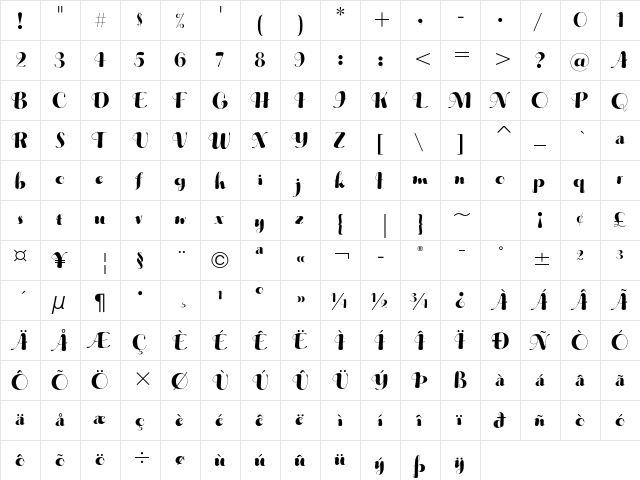
Musica ITC Std Regular
| Designer | Photo-Lettering Collection Revival |
Design Context for Musica ITC Std Typeface
Musica ITC Std is a composed and adaptable typeface that performs quietly and consistently across a wide range of design contexts.